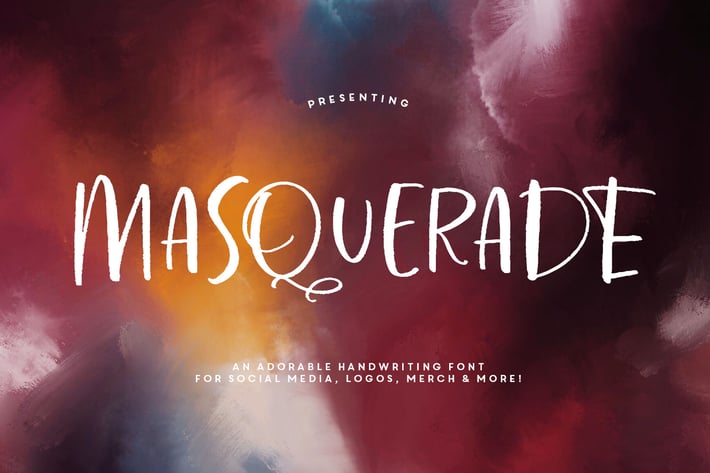
Masquerade Typeface
MakeMediaCo
Introducing Masquerade Handwriting Font - a fun, bouncy, handwriting font that’s so adorable for quotes, logos and social media.